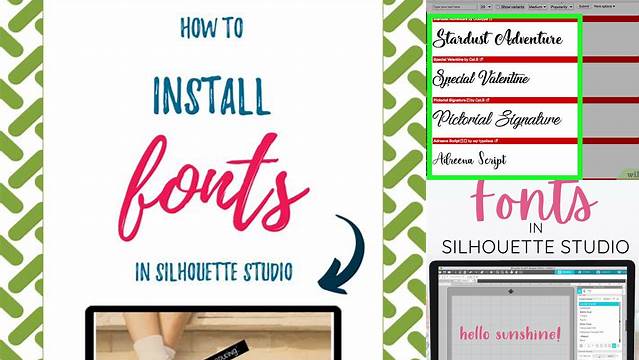
Install DaFont Fonts In Silhouette: A Step-by-Step Guide
Hey crafters! Ever stumbled upon a super cool font on DaFont and wondered how to use it in Silhouette Studio? You're not alone! Installing new fonts can seem a little tricky at first, but trust me, it's a breeze once you get the hang of it. This guide will walk you through the process step-by-step, so you can unleash your creativity with a whole new world of fonts. Let’s dive in and get those fonts working for you! This comprehensive guide will cover everything from finding the perfect font on DaFont to using it in your Silhouette projects. We'll also troubleshoot common issues and provide tips for managing your font library. Get ready to elevate your designs with amazing new fonts!
1. Understanding Font Compatibility with Silhouette Studio
Before you even think about downloading a font, it’s crucial to understand what kind of fonts Silhouette Studio plays nicely with. Generally, Silhouette Studio supports TrueType Fonts (TTF) and OpenType Fonts (OTF). These are the industry standard, so most fonts you find on DaFont will be in one of these formats. However, it's always a good idea to double-check before you download. Using compatible fonts ensures a smooth installation process and prevents any frustrating errors down the line. Imagine spending hours designing a project only to find out the font you used isn't supported! To avoid this, familiarize yourself with the supported formats and make it a habit to verify font compatibility. This simple step can save you a lot of time and headache in the long run. We’ll also cover how to deal with potentially problematic fonts later in this guide.
2. Navigating DaFont and Choosing the Right Fonts
DaFont is a treasure trove for font lovers, but with thousands of options, it can feel like being a kid in a candy store! The key is to navigate the site effectively. DaFont categorizes fonts by style – think Fancy, Cartoon, Gothic, Basic, Script, and more. This makes it easy to narrow down your search. When choosing fonts for Silhouette projects, consider the style and theme of your design. A delicate script might be perfect for wedding invitations, while a bold, sans-serif font might be better for vinyl decals. Don't be afraid to experiment, but always ensure the font is legible and fits the overall aesthetic. Another cool feature on DaFont is the preview tool. You can type in your text and see how it looks in different fonts before you even download them. This is super helpful for visualizing your final product. Remember, the right font can make or break your design, so take your time and choose wisely! Also, be sure to check the license of the font. Most fonts on DaFont are free for personal use, but some may require a commercial license if you plan to sell your creations. Always respect the font creator’s terms of use.
3. Downloading Fonts Safely from DaFont
Okay, you’ve found the perfect font – awesome! Now, let's talk about downloading it safely. DaFont is generally a safe site, but it’s always wise to practice good internet safety habits. Before clicking that download button, take a quick look at the font's information. Check the number of downloads and comments – if a font has thousands of downloads and positive feedback, it's usually a good sign. If a font has very few downloads or negative comments, it might be best to steer clear. When you click download, the font will usually come in a ZIP file. This is a compressed file format that helps save space. Once the file is downloaded, it's important to scan it with your antivirus software. This is just a precautionary step to ensure the file is free from any nasty surprises. While DaFont does its best to vet fonts, it's always better to be safe than sorry. Remember, a little bit of caution can save you from a lot of trouble down the road. We'll walk through the unzipping process in the next step.
4. Extracting Font Files from ZIP Folders
Alright, you've downloaded your font in a ZIP file – now what? Don't worry, extracting the font files is super easy. Think of a ZIP file like a digital package – it contains one or more files that are compressed to save space. To access the font files, you need to “unzip” or “extract” them. Most operating systems have built-in tools for this. On Windows, you can simply right-click the ZIP file and select “Extract All.” On a Mac, double-clicking the ZIP file will usually extract its contents. Once you've extracted the files, you'll typically find one or more files with the extensions .TTF or .OTF. These are the actual font files that you'll install on your computer. Sometimes, you might also find a text file with the font's license information – be sure to read this! It will tell you how you can legally use the font. If you're having trouble extracting the files, there are also free third-party programs like 7-Zip that can handle ZIP files. Extracting the files is a crucial step, so make sure you do it correctly before moving on to the installation process.
5. Installing Fonts on Windows Operating System
Now for the exciting part – installing the font on your Windows computer! This is where the magic happens, and you get to add that cool new font to your system. There are a couple of ways to do this, but here’s the most common method: First, locate the .TTF or .OTF font file that you extracted from the ZIP folder. Right-click on the font file, and you should see an “Install” option in the context menu. Click on “Install,” and Windows will automatically install the font. Alternatively, you can also double-click the font file. This will open a preview window of the font, and you'll see an “Install” button at the top. Click this button to install the font. Windows will handle the rest! Once the font is installed, it will be available for use in all programs on your computer, including Silhouette Studio. If you don't see the font right away in Silhouette Studio, try restarting the program. This forces it to refresh its font list. Installing fonts on Windows is usually a smooth process, but if you encounter any issues, we'll cover troubleshooting tips later in this guide.
6. Installing Fonts on macOS
Mac users, fear not! Installing fonts on macOS is just as straightforward as it is on Windows, maybe even a little simpler. To install a font on your Mac, first, locate the .TTF or .OTF font file that you extracted. Double-click the font file, and it will open in Font Book, which is the built-in font management application on macOS. Font Book will show you a preview of the font. To install it, simply click the “Install Font” button at the bottom of the window. macOS will then validate the font and install it on your system. Once the font is installed, it will be available for use in all applications, including Silhouette Studio. Just like on Windows, if you don't see the font in Silhouette Studio right away, try restarting the program. This will ensure that Silhouette Studio recognizes the newly installed font. macOS makes font management pretty easy, and Font Book is a handy tool for previewing and organizing your fonts. If you ever need to remove a font, you can do so through Font Book as well.
7. Refreshing Silhouette Studio to Recognize New Fonts
Okay, you've installed your font, but you don't see it in Silhouette Studio – frustrating, right? Don't panic! This is a common issue, and the fix is usually simple: you need to refresh Silhouette Studio. Silhouette Studio doesn't automatically detect new fonts as soon as they're installed. It needs a little nudge to update its font list. The easiest way to do this is to restart Silhouette Studio. Close the program completely and then reopen it. When Silhouette Studio starts up, it will scan your system for new fonts and add them to its font menu. In most cases, this will solve the problem. If restarting Silhouette Studio doesn't work, there's another trick you can try. You can try restarting your computer. This ensures that your entire system recognizes the new font and that Silhouette Studio can access it. Refreshing Silhouette Studio is a crucial step in the font installation process, so don't skip it!
8. Finding Your Newly Installed Fonts in Silhouette Studio
You've installed your fonts and refreshed Silhouette Studio – now it's time to find those beauties and put them to work! Finding your new fonts in Silhouette Studio is pretty straightforward. Open Silhouette Studio and create a new project or open an existing one. Select the text tool and type some text onto your design canvas. With the text selected, go to the text style panel. This is where you'll find the font menu. Click the dropdown menu, and you'll see a list of all the fonts installed on your system. Your newly installed fonts should be in this list. Font lists are usually alphabetized, so scroll through or use the search bar to find your font. If you have a lot of fonts installed, the search bar can be a real lifesaver! Once you've found your font, click on it to apply it to your selected text. Now you can see your text transformed into the new font! Remember, the font you choose can dramatically impact the look and feel of your design, so have fun experimenting with different fonts.
9. Troubleshooting Common Font Installation Issues
Even with the best instructions, sometimes things don't go quite as planned. Font installation can occasionally hit a snag, but don't worry, we're here to help you troubleshoot. One common issue is that the font doesn't appear in Silhouette Studio even after restarting the program. If this happens, double-check that the font is actually installed on your system. Go to your font management application (Font Book on Mac, Fonts folder in Control Panel on Windows) and see if the font is listed. If it's not, try reinstalling it. Another potential problem is that the font appears distorted or doesn't display correctly. This could be due to a corrupted font file or an incompatibility issue. Try downloading the font again from DaFont or another reputable source. If the problem persists, the font might not be fully compatible with Silhouette Studio. In rare cases, font conflicts can occur if you have multiple versions of the same font installed. If you suspect this is the issue, try removing the older version of the font. Troubleshooting font installation issues can be a bit of a process of elimination, but with a little patience, you'll usually find a solution.
10. Font Management Tips for Silhouette Studio Users
As your font collection grows, managing your fonts becomes increasingly important. A well-organized font library can save you time and frustration. Here are some tips for managing your fonts like a pro: First, consider using a font management program. There are several free and paid options available that can help you organize, preview, and activate/deactivate fonts. This is especially helpful if you have hundreds or even thousands of fonts. Another tip is to create font categories or folders. You can group fonts by style (script, sans-serif, display, etc.) or by project type (wedding, birthday, holiday, etc.). This makes it easier to find the perfect font for your needs. It's also a good idea to regularly clean up your font library. Remove any fonts you don't use or that are corrupted. This will help keep your system running smoothly and prevent font conflicts. Finally, always back up your font library! You don't want to lose your precious fonts if your computer crashes or you accidentally delete them. Font management is an ongoing process, but it's well worth the effort in the long run.
11. Using Font Filters in Silhouette Studio
Silhouette Studio offers some handy font filters that can help you narrow down your font choices. These filters are especially useful when you have a large font library. To access the font filters, open the text style panel and click on the filter icon (it looks like a funnel). You'll see several filter options, such as filtering by font type (TrueType, OpenType) or by recently used fonts. You can also filter by font style (bold, italic, etc.) if the font supports these variations. The font filters can save you a lot of time by allowing you to quickly find the fonts that meet your specific criteria. For example, if you're looking for a bold script font, you can filter by both “Script” and “Bold” to see only fonts that match both criteria. Experiment with the different filter options to see how they can help you streamline your font selection process. Using font filters is a simple but effective way to manage your fonts within Silhouette Studio.
12. Previewing Fonts Effectively in Silhouette Studio
Previewing fonts is crucial for ensuring that you choose the perfect font for your project. Silhouette Studio offers a live preview feature that allows you to see how a font will look in your design before you actually apply it. To use the live preview, simply select the text you want to change and hover your mouse over the different fonts in the font menu. The selected text will dynamically update to show you a preview of each font. This is a fantastic way to quickly compare different fonts and see how they look with your specific text and design elements. Pay attention to the font's legibility, spacing, and overall style when previewing. Does it fit the tone of your project? Is it easy to read at different sizes? These are important factors to consider. Also, remember that the preview is just a visual representation. The actual appearance of the font may vary slightly depending on your printer settings and the materials you're using. Still, live previews are an invaluable tool for font selection.
13. Understanding Font Licensing for Commercial Use
If you plan to sell projects you create using fonts downloaded from DaFont, understanding font licensing is essential. Most fonts on DaFont are free for personal use, but commercial use may require a license. Using a font for commercial purposes without the proper license is a copyright infringement and can lead to legal trouble. So, how do you determine if a font is licensed for commercial use? First, check the font's information page on DaFont. The font creator will usually specify the licensing terms in the description. Look for terms like “Free for personal use” or “Commercial use allowed.” If the license isn't clear, it's always best to contact the font creator directly and ask for clarification. If a font requires a commercial license, you'll typically need to purchase it from the font creator or a font marketplace. Commercial licenses vary in price and scope, so make sure you understand the terms before you buy. Some licenses cover a single user, while others cover multiple users or unlimited projects. Always err on the side of caution when it comes to font licensing. It's better to be safe than sorry!
14. Creating Font Combinations for Eye-Catching Designs
One of the secrets to great design is using font combinations effectively. Pairing different fonts can create visual interest and hierarchy in your designs. But how do you choose fonts that work well together? A good rule of thumb is to combine fonts with contrasting styles. For example, you might pair a bold sans-serif font with a delicate script font. The contrast in styles will make each font stand out. Another approach is to use fonts from the same font family. Font families often include variations in weight (light, regular, bold) and style (italic, condensed). Using different variations of the same font family can create a cohesive and professional look. When combining fonts, limit yourself to two or three fonts per design. Too many fonts can make your design look cluttered and confusing. Also, consider the overall tone and message of your design. The fonts you choose should reflect the style and purpose of your project. Experiment with different combinations and see what works best for you. Font pairing is an art, but with a little practice, you can create stunning designs.
15. Backing Up Your Font Library
Imagine losing all of your precious fonts – the thought is enough to make any crafter cringe! That's why backing up your font library is so important. Think of it as insurance for your creative assets. There are several ways to back up your fonts. One option is to simply copy your font files to an external hard drive or USB drive. This is a simple and effective way to create a physical backup. Another option is to use cloud storage services like Google Drive, Dropbox, or OneDrive. These services allow you to store your files online and access them from anywhere. Cloud backups also provide an extra layer of protection against data loss due to computer crashes or hardware failures. No matter which method you choose, make sure to back up your fonts regularly. It's a good habit to back up your entire system, including your fonts, on a weekly or monthly basis. A little bit of effort in backing up your fonts can save you a lot of headaches in the long run. Don't wait until it's too late – back up your fonts today!
16. Using Special Characters and Glyphs in Silhouette Studio
Did you know that many fonts include special characters and glyphs that go beyond the standard letters and numbers? These hidden gems can add a unique touch to your designs. Special characters and glyphs can include ligatures (connected letter pairs), swashes (decorative strokes), alternate letterforms, and symbols. Accessing these special characters in Silhouette Studio is relatively easy. The process varies slightly depending on your operating system. On Windows, you can use the Character Map application. This utility shows you all the characters and glyphs available in a font. Simply select the character you want to use and copy it to your clipboard. Then, paste it into your text in Silhouette Studio. On macOS, you can use the Font Book application or the Character Viewer (accessed via the Edit menu in most applications). Both of these tools allow you to browse and insert special characters and glyphs. When using special characters, be mindful of their visual impact on your design. A subtle swash or ligature can add a touch of elegance, while an overly ornate character can make your design look cluttered. Experiment and have fun exploring the hidden treasures within your fonts!
17. Converting Fonts to Paths/Outlines in Silhouette Studio
Converting fonts to paths or outlines is a technique that can be useful for several reasons in Silhouette Studio. When you convert text to paths, you're essentially turning the letters into vector shapes. This means that the text is no longer editable as text, but it becomes a collection of lines and curves. One reason to convert fonts to paths is to prevent font substitution issues. If you share your design with someone who doesn't have the same fonts installed, Silhouette Studio may substitute a different font, which can change the look of your design. Converting the text to paths ensures that the design will look the same regardless of the fonts installed on the recipient's computer. Another reason is to create custom text effects. Once text is converted to paths, you can manipulate the individual letterforms, add gradients, or apply other effects that are not possible with regular text. To convert text to paths in Silhouette Studio, select the text and then choose “Object” > “Convert to Path.” Keep in mind that once you convert text to paths, you can't easily edit the text anymore, so make sure you're happy with the text before you convert it.
18. Kerning and Letter Spacing Adjustments in Silhouette Studio
Kerning and letter spacing are crucial for creating visually appealing typography in your designs. Kerning refers to the spacing between individual letters, while letter spacing (also called tracking) refers to the overall spacing between all letters in a word or phrase. Both kerning and letter spacing can impact the legibility and aesthetic of your text. In Silhouette Studio, you can adjust kerning and letter spacing using the text style panel. To adjust kerning, select the text and then use the kerning controls in the text style panel. You can increase or decrease the spacing between specific letter pairs. To adjust letter spacing, use the letter spacing control in the text style panel. This control adjusts the spacing between all letters in the selected text. When adjusting kerning, pay attention to letter pairs that look too close together or too far apart. Some fonts have poor kerning by default, so manual adjustments may be necessary. When adjusting letter spacing, consider the overall density of your text. Too much spacing can make your text look airy and disjointed, while too little spacing can make it look cramped and difficult to read. Kerning and letter spacing are subtle adjustments, but they can make a big difference in the final look of your design.
19. Working with Script Fonts in Silhouette Studio
Script fonts are elegant and flowing, but they can also be tricky to work with in Silhouette Studio. Script fonts often have connecting letters, and it's important to ensure that these connections look smooth and natural when cutting with your Silhouette machine. One common issue with script fonts is overlapping letters. When letters overlap, Silhouette Studio may cut them as separate shapes, resulting in jagged edges and uneven cuts. To fix this, you can use the weld tool in Silhouette Studio. The weld tool merges overlapping shapes into a single shape, creating a smooth and continuous outline. To weld script fonts, select the text and then click the weld tool icon in the Modify panel. Another challenge with script fonts is choosing the right font size. Script fonts tend to look best when they're larger, as this allows the delicate details to shine. However, very small script fonts can be difficult to cut and weed. Experiment with different font sizes to find the sweet spot for your project. Finally, remember that not all script fonts are created equal. Some script fonts are better suited for cutting than others. Look for fonts with clean lines and minimal serifs for best results. Working with script fonts requires a bit of extra attention, but the results are well worth the effort.
20. Creating Text Effects with Fonts in Silhouette Studio
Silhouette Studio offers a variety of tools and effects that you can use to create stunning text designs. Here are a few popular text effects you can try: First, you can add shadows to your text to create depth and dimension. Silhouette Studio has a shadow effect tool that allows you to easily add drop shadows to your text. Experiment with different shadow colors, offsets, and blur levels to achieve the desired effect. Another popular effect is to fill text with patterns or gradients. Silhouette Studio allows you to fill text with any pattern or gradient in your library. This can add a lot of visual interest to your designs. You can also create textured text effects by using the sketch pen tool or the stipple tool. These tools create a hand-drawn or engraved look. Outlining text is another effective technique. Adding a contrasting outline to your text can make it stand out and improve legibility. Silhouette Studio has an offset tool that makes it easy to create outlines around your text. Finally, don't be afraid to experiment with different font combinations and arrangements. Try layering text, rotating text, or arranging text in unusual shapes. The possibilities are endless! Creating text effects is a fun way to unleash your creativity and make your designs truly unique.
21. Importing Fonts from Other Sources Besides DaFont
While DaFont is a fantastic resource for free fonts, it's not the only game in town. There are many other places you can find fonts, both free and commercial. Exploring different font sources can expand your creative options and help you find the perfect font for your project. One popular source is Google Fonts. Google Fonts offers a vast library of free, open-source fonts that are designed to be web-friendly. These fonts are easy to download and install, and they come with commercial licenses. Another option is font marketplaces like MyFonts, Creative Market, and Fontspring. These marketplaces offer a wide selection of high-quality commercial fonts from independent designers. Commercial fonts often come with more features and better support than free fonts. You can also find free fonts on other websites, but be careful to download fonts only from reputable sources. Always check the licensing terms before using a font, especially for commercial purposes. When importing fonts from other sources, the installation process is generally the same as with DaFont fonts. Simply download the font file, extract it if necessary, and install it on your system. With a little exploration, you can build a diverse and inspiring font collection.
22. Using Font Symbols in Silhouette Designs
Fonts aren't just for letters and numbers – they also often include a variety of symbols that can add a unique touch to your Silhouette designs. These symbols can include dingbats, ornaments, arrows, icons, and more. Font symbols can be a quick and easy way to add visual interest to your projects without having to create custom graphics. To access font symbols in Silhouette Studio, you'll need to use a character map or glyph panel. On Windows, you can use the Character Map application. On macOS, you can use the Font Book application or the Character Viewer. These tools allow you to browse all the characters and symbols available in a font. Once you find a symbol you like, you can copy it and paste it into your text in Silhouette Studio. Alternatively, you can use a dingbat font. Dingbat fonts are fonts that consist entirely of symbols and ornaments. These fonts can be a fun way to add decorative elements to your designs. When using font symbols, consider their size and placement carefully. Symbols should complement your text and overall design, not overpower them. Experiment with different symbols and see how they can enhance your creative projects.
23. Saving and Sharing Silhouette Studio Projects with Custom Fonts
When you create a Silhouette Studio project that uses custom fonts, it's important to consider how those fonts will be handled when you save and share your project. If you share your project with someone who doesn't have the same fonts installed, they may see a different font or a default font instead of your chosen font. To avoid this issue, there are a couple of options: One option is to convert your text to paths before saving and sharing your project. As we discussed earlier, converting text to paths turns the letters into vector shapes, so the recipient will see the design exactly as you intended, regardless of the fonts installed on their system. However, keep in mind that once you convert text to paths, it's no longer editable as text. Another option is to embed the fonts in your Silhouette Studio project file. Embedding fonts means including the font files within the project file itself. This ensures that the fonts will be available even if the recipient doesn't have them installed. However, embedding fonts can increase the file size of your project, and it may not be possible for all fonts due to licensing restrictions. Check the font's license to see if embedding is allowed. When sharing Silhouette Studio projects with custom fonts, it's always a good idea to communicate with the recipient about the fonts you've used. This will help ensure that they can view your design as intended.
24. Organizing Fonts by Project Type
As your font collection grows, organizing your fonts by project type can be a helpful way to find the perfect font quickly. Think about the types of projects you create most often – are they wedding invitations, birthday cards, vinyl decals, t-shirt designs, or something else? Create folders or categories for each project type, and then move your fonts into the appropriate folders. For example, you might have a “Wedding Fonts” folder with elegant script fonts and classic serif fonts, or a “Kids’ Fonts” folder with playful and whimsical fonts. Organizing fonts by project type can save you time and frustration when you're working on a new design. Instead of scrolling through hundreds of fonts, you can focus on the fonts that are most relevant to your project. You can also use font management software to create font sets or collections for different project types. These sets allow you to activate and deactivate fonts as needed, so you're not overloading your system with fonts you're not currently using. Organizing your fonts by project type is a simple but effective way to streamline your workflow and stay organized.
25. Creating Font Swatches for Easy Reference
Font swatches are a visual way to preview and compare your fonts. Creating font swatches can help you choose the perfect font for your project at a glance. A font swatch typically consists of a sample of text displayed in the font, along with the font name. You can create font swatches in a word processing program, a graphics editor, or even in Silhouette Studio itself. One approach is to create a document with a table or grid, and then type the font name and a sample of text in each cell. You can use different font sizes and styles to get a better sense of the font's characteristics. Another option is to use font management software that includes a built-in font swatch feature. These programs often generate swatches automatically, making the process even easier. Once you've created your font swatches, you can print them out or keep them as a digital reference. Having a visual guide to your fonts can save you time when you're designing, as you can quickly compare different options without having to install and preview each font individually. Font swatches are a valuable tool for any font enthusiast.
26. Using Online Font Identification Tools
Ever seen a font you love but have no idea what it is? Online font identification tools can help you solve this mystery. These tools use image recognition technology to analyze a sample of text and identify the font (or suggest similar fonts). There are several online font identification tools available, such as WhatTheFont!, Identifont, and Font Squirrel Matcherator. To use these tools, you typically upload an image of the text or provide a URL to an image. The tool will then analyze the image and identify the font (if it's in its database) or suggest similar fonts. For best results, the image should be clear and the text should be relatively large. It's also helpful if the text is in a common font. Keep in mind that font identification tools are not always perfect. They may not be able to identify all fonts, especially if the font is obscure or the image quality is poor. However, they can be a valuable resource for font sleuthing. If you're a font lover, adding font identification tools to your toolbox can be a game-changer.
27. Free vs. Commercial Fonts: What's the Difference?
When it comes to fonts, you have two main options: free fonts and commercial fonts. Both types of fonts can be great, but there are some key differences to consider. Free fonts are, well, free! They can be a budget-friendly option for personal projects or small businesses. However, free fonts often have limited features and may not be as polished as commercial fonts. They may also have licensing restrictions that limit how you can use them. Commercial fonts, on the other hand, come with a price tag. But they often offer more features, better quality, and broader licensing terms. Commercial fonts are typically created by professional type designers and are rigorously tested for quality and legibility. They may also include special characters, glyphs, and font variations. When deciding between free and commercial fonts, consider your project's needs and your budget. If you're working on a small, personal project, a free font may be perfectly adequate. But if you're working on a large, commercial project, investing in commercial fonts may be worth the cost. Always check the licensing terms of any font before using it, regardless of whether it's free or commercial.
28. The Importance of Font Legibility in Silhouette Projects
Font legibility is a critical factor to consider in any Silhouette project, especially when you're creating designs that will be cut from vinyl or other materials. A font that looks beautiful on screen may not be legible when cut at a small size. When choosing fonts for your Silhouette projects, prioritize legibility over aesthetics. Look for fonts with clear, simple letterforms and adequate spacing. Avoid fonts with overly ornate details or thin, delicate strokes, as these may be difficult to cut and weed. Test your fonts at different sizes before cutting your final design. Cut a small sample of the text in your chosen material to see how it looks. If the letters are too close together or the details are getting lost, you may need to choose a different font or increase the font size. Remember that the material you're using can also affect font legibility. Some materials, like glitter vinyl, can make fine details harder to see. Choosing a legible font is essential for ensuring that your Silhouette projects look their best.
29. Cleaning Up and Optimizing Fonts for Cutting
Even with the most legible fonts, you may still need to do some cleanup and optimization before cutting them with your Silhouette machine. This is especially true for script fonts or fonts with intricate details. Cleaning up fonts involves removing any unnecessary points or lines that can cause your Silhouette machine to struggle. You can use the simplify tool in Silhouette Studio to reduce the number of points in a shape. This can make your cuts smoother and faster. Optimizing fonts for cutting also means ensuring that the lines are thick enough to be cut cleanly. Thin lines may tear or break during the cutting process. You can use the offset tool in Silhouette Studio to add a slight outline to your text, which will make the lines thicker. Another tip is to weld any overlapping letters, as we discussed earlier. This will prevent the machine from cutting the letters as separate shapes. Cleaning up and optimizing fonts may take a bit of extra time, but it will result in cleaner cuts and more professional-looking projects.
30. Font Trends and Inspiration for Silhouette Crafters
Fonts are like fashion – they go through trends! Staying up-to-date on font trends can help you create designs that are fresh and modern. But where do you find font inspiration? There are many resources available for Silhouette crafters looking for font inspiration. One option is to browse design blogs and websites. These sites often showcase trending fonts and font combinations. Another option is to follow font designers and typographers on social media. They often share their latest creations and offer insights into font trends. You can also find inspiration in real-world designs, such as packaging, signage, and editorial layouts. Pay attention to the fonts that are being used in these designs and try to identify the trends. Some current font trends include geometric sans-serif fonts, handwritten fonts, and vintage-inspired fonts. However, remember that trends come and go. Choose fonts that reflect your personal style and the needs of your project, rather than blindly following trends. Font inspiration is all around you – keep your eyes open and let your creativity flow!